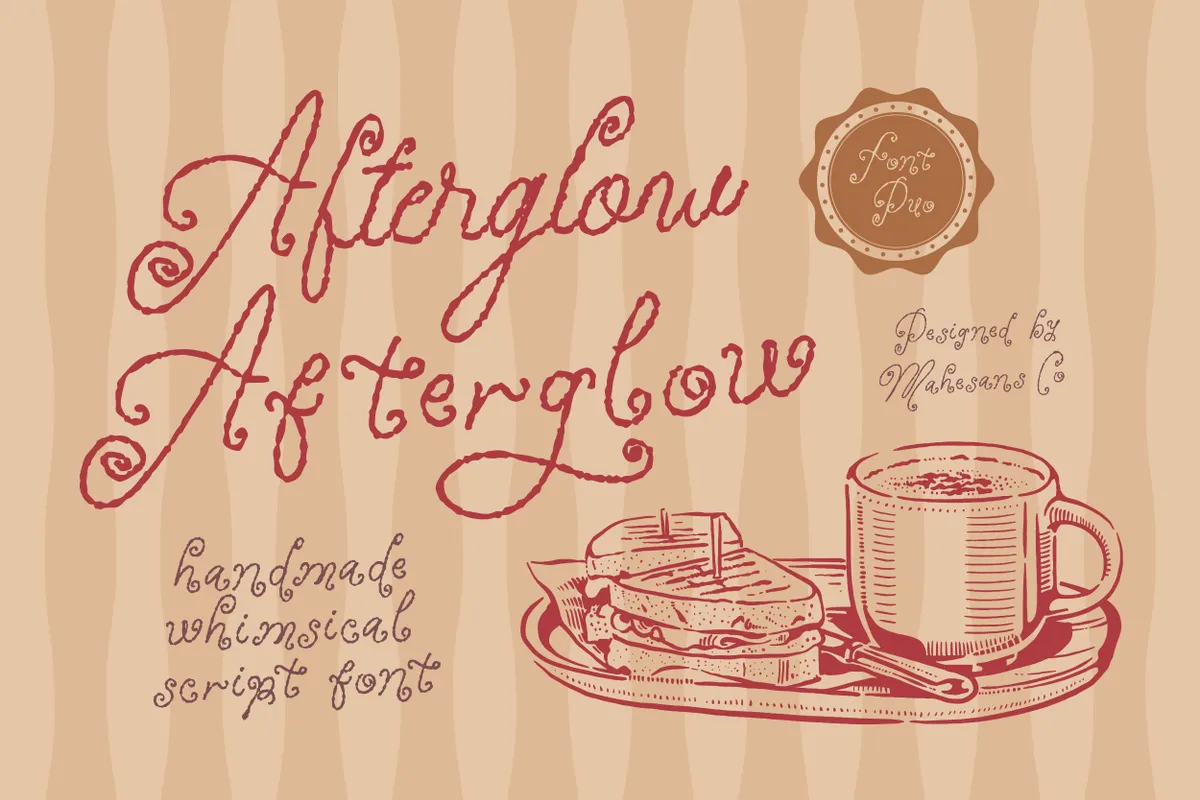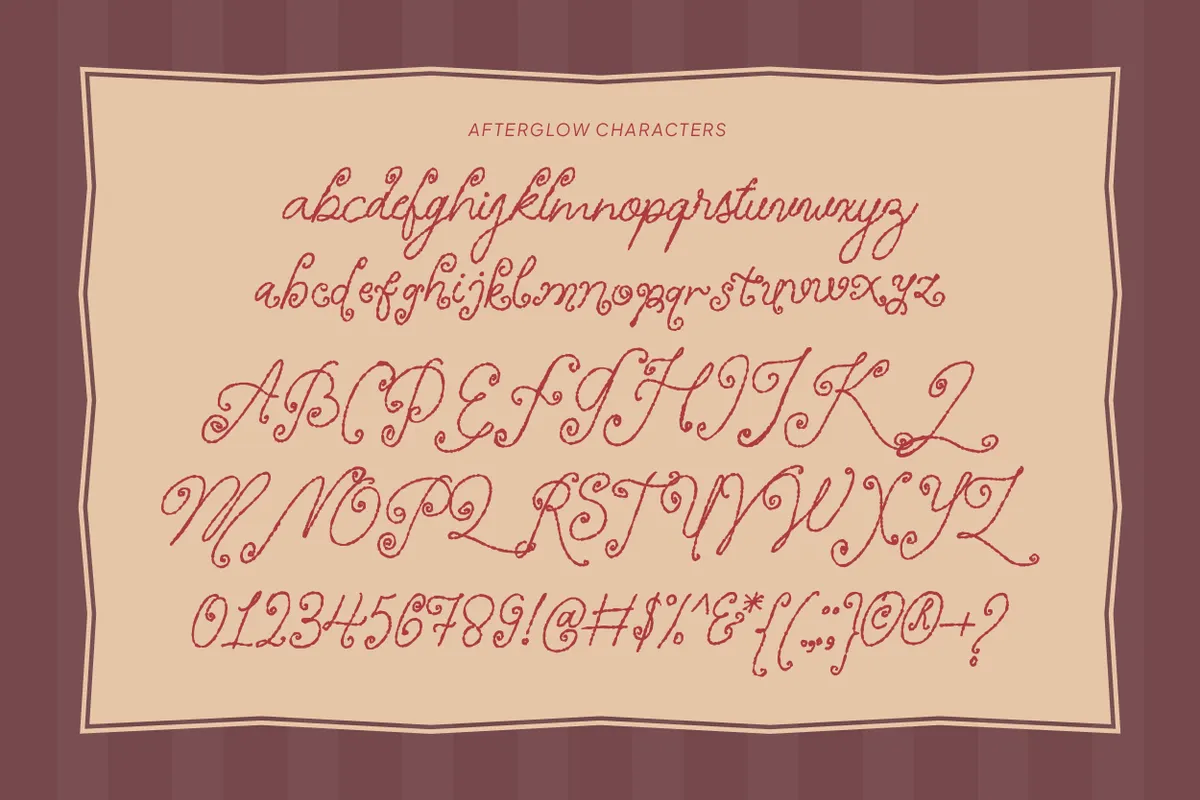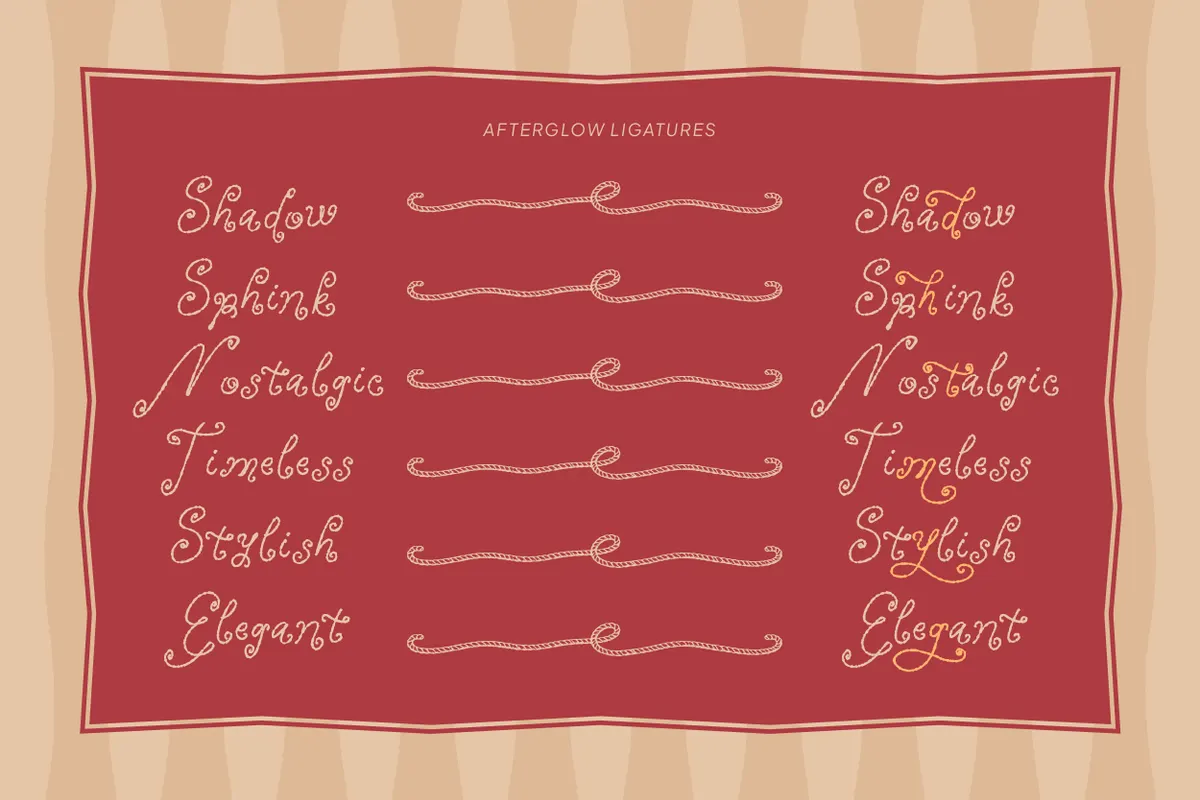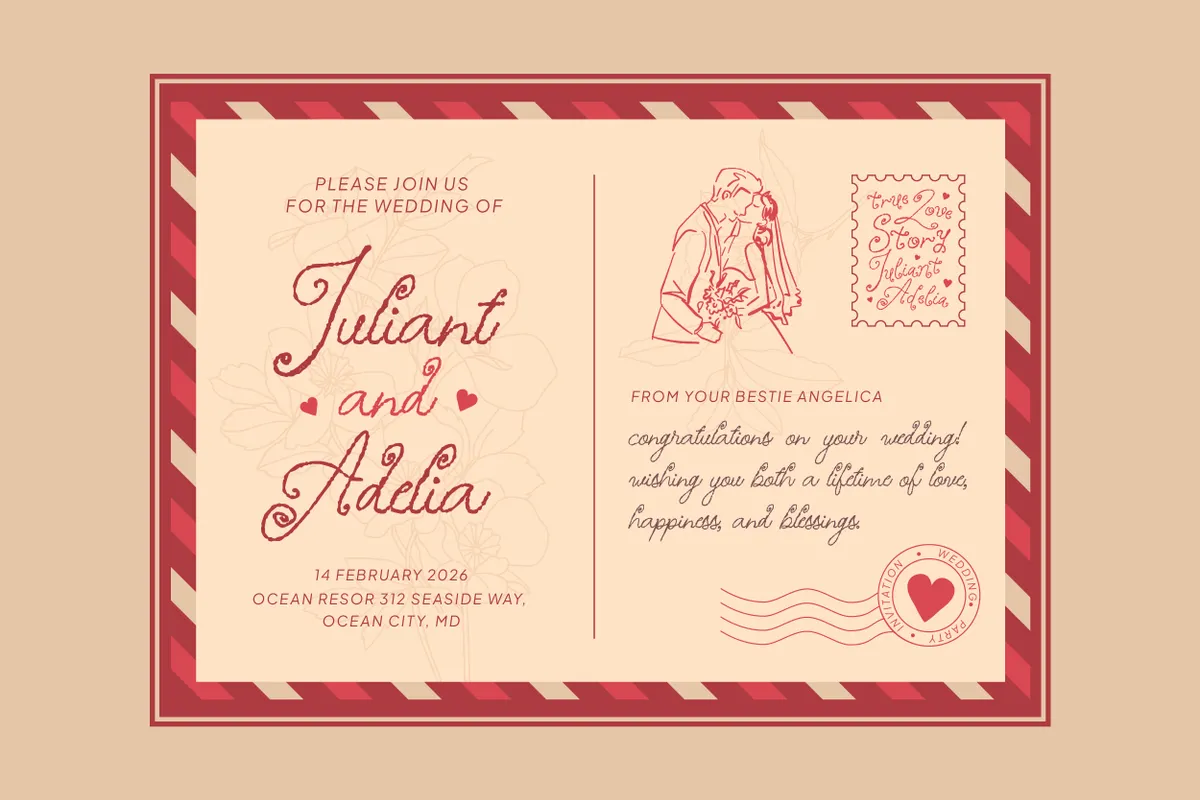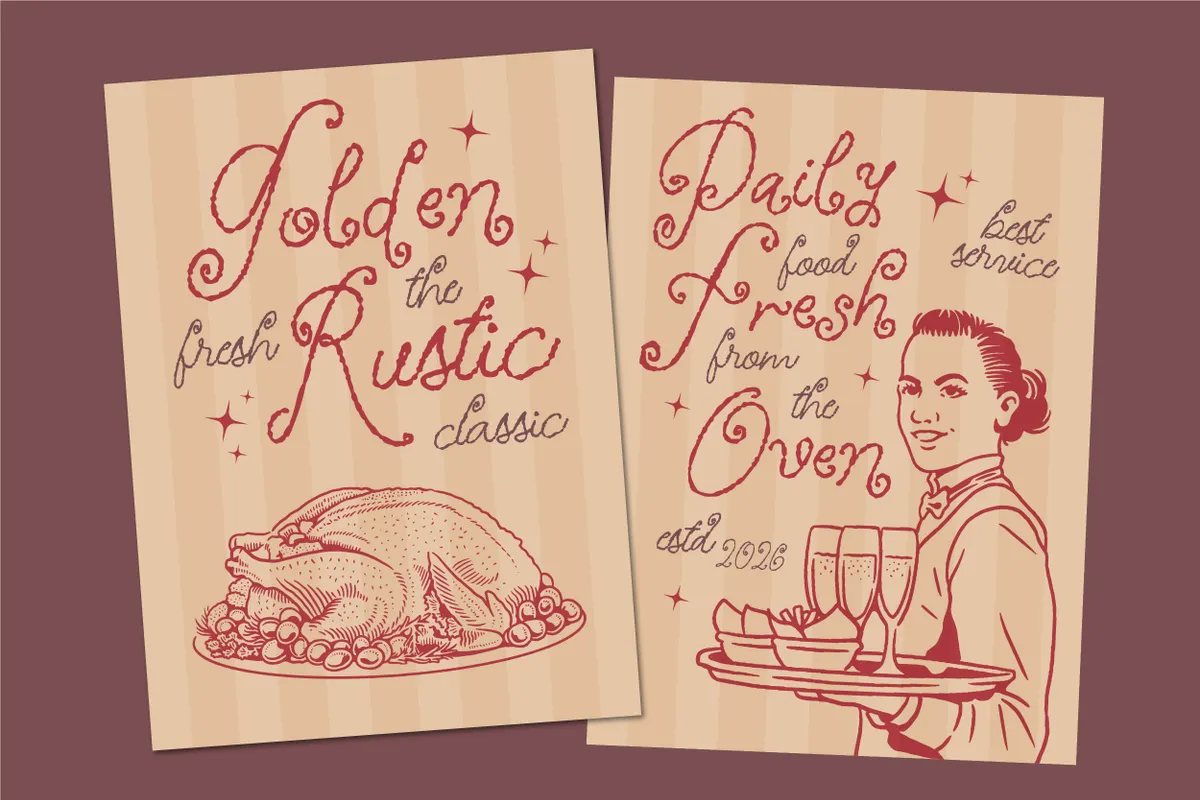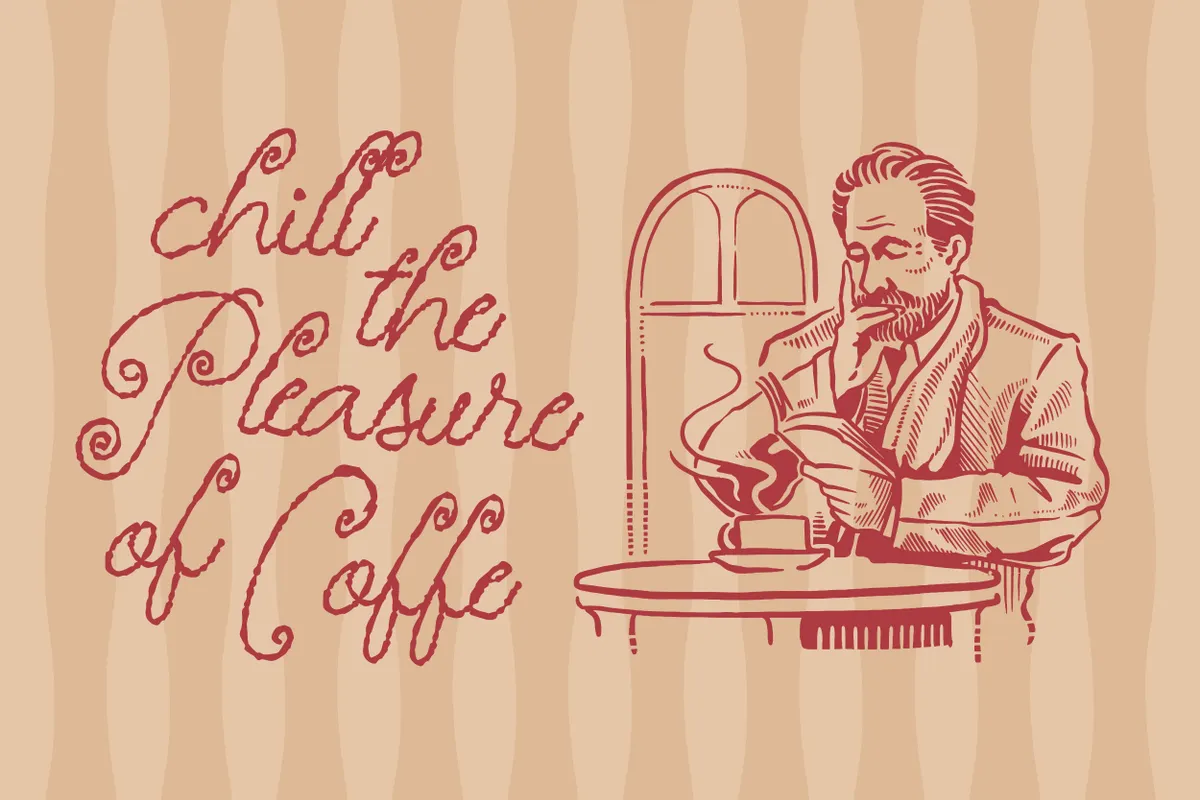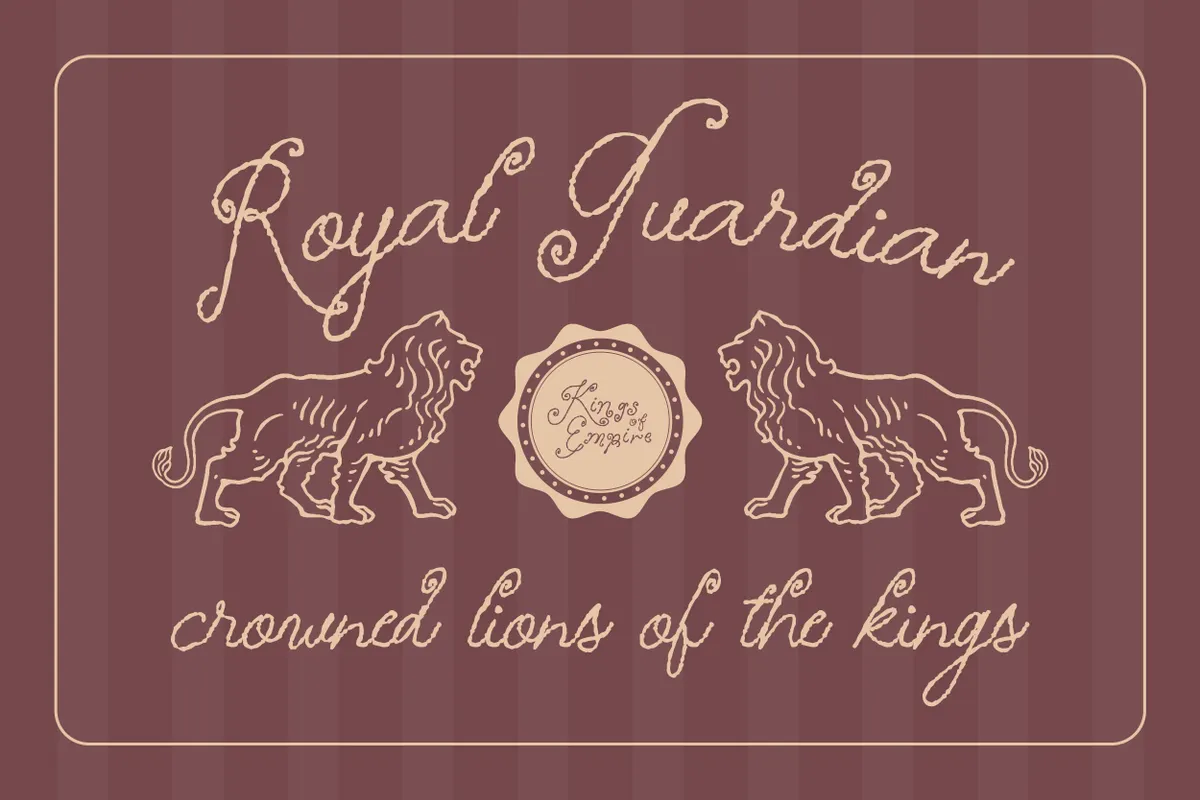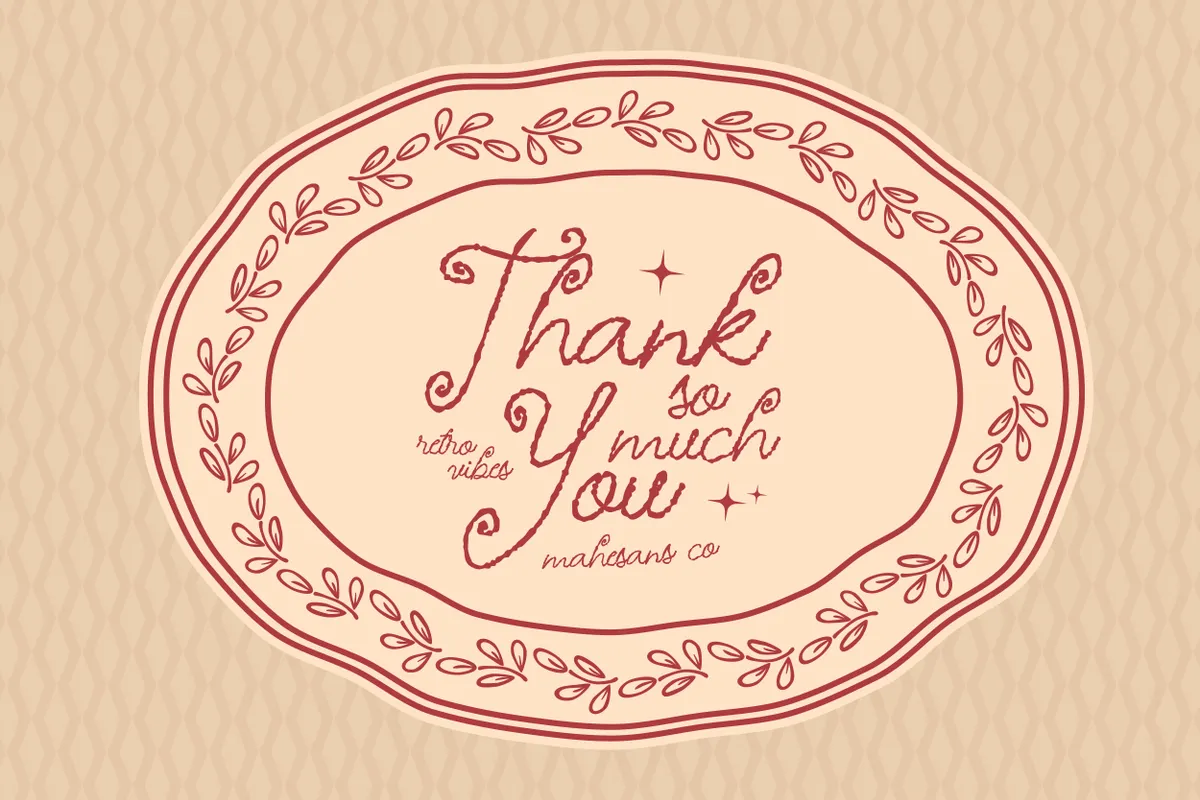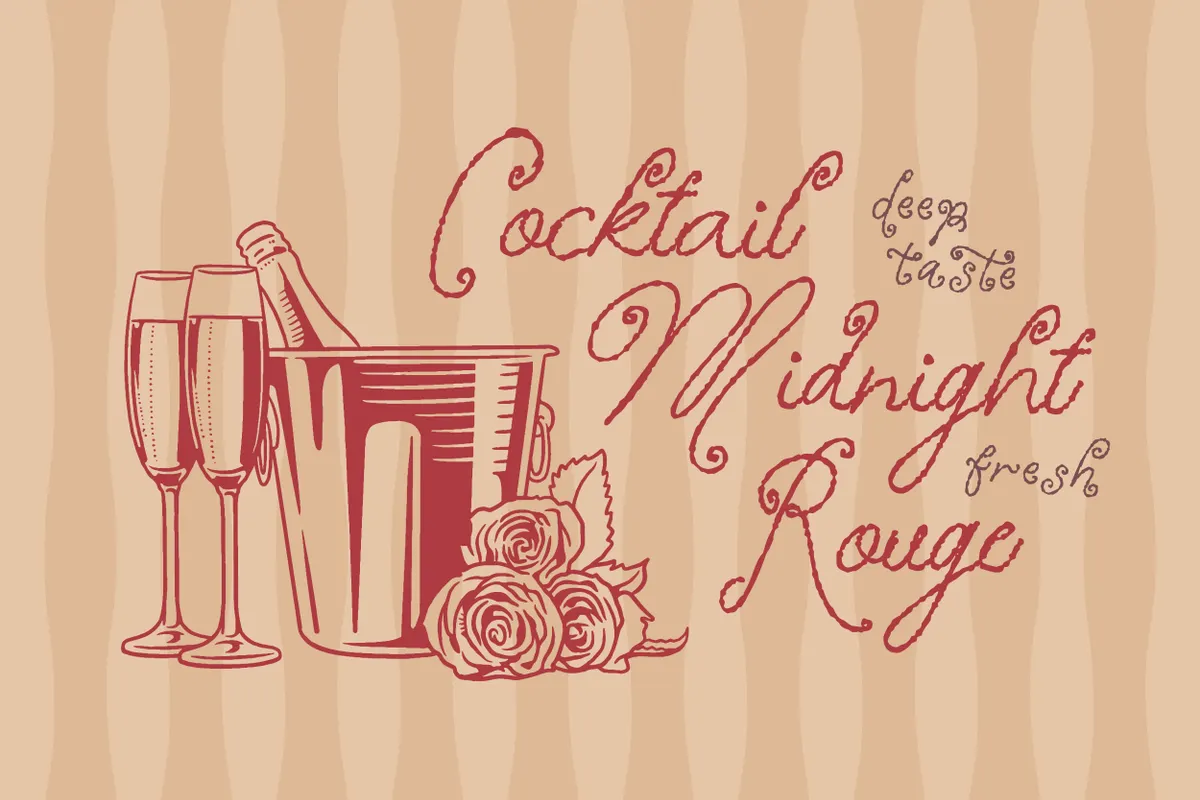
Afterglow - Handwritten Script Font Duo
Afterglow
Afterglow V2
Afterglow draws a looping, rope-textured script paired with Afterglow V2, a calmer, less ornamented companion in the same handwriting. Nine ascender and descender letters, b, d, g, h, j, m, n, t, and y, swap in alternate loop forms on the main style, reachable through the OpenType panel.
Use the pair for restaurant branding, café menus, food packaging, vintage logos, wedding stationery, labels, invitations, and posters.
- Uppercase & lowercase;
- Numerals, punctuation & symbols;
- Duo font: Afterglow and Afterglow V2;
- Stylistic alternates on 9 letters, automatic fractions, superscript figures;